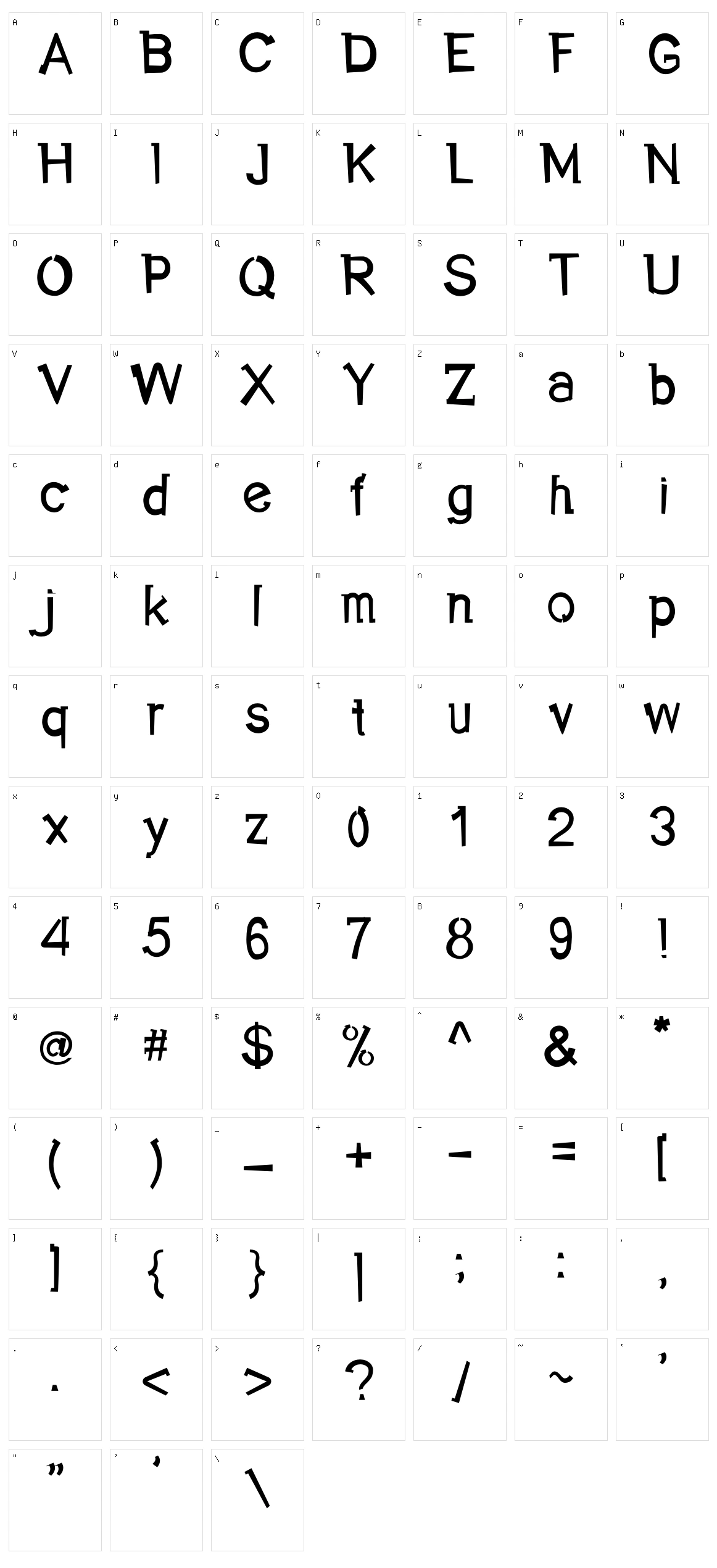
The free font Rapunzel Govermen is carefully designed by Pidco Art, showcasing a thoughtful balance of creativity and usability and falls under the Cartoon font style. When you download the ZIP file, it contains only 18.71 KB of font files, making it lightweight and quick to download. Please review the license details below to understand permitted usage and distribution rights. If license information is not available, we recommend using this font for personal projects only or contacting the author directly for commercial usage permissions.